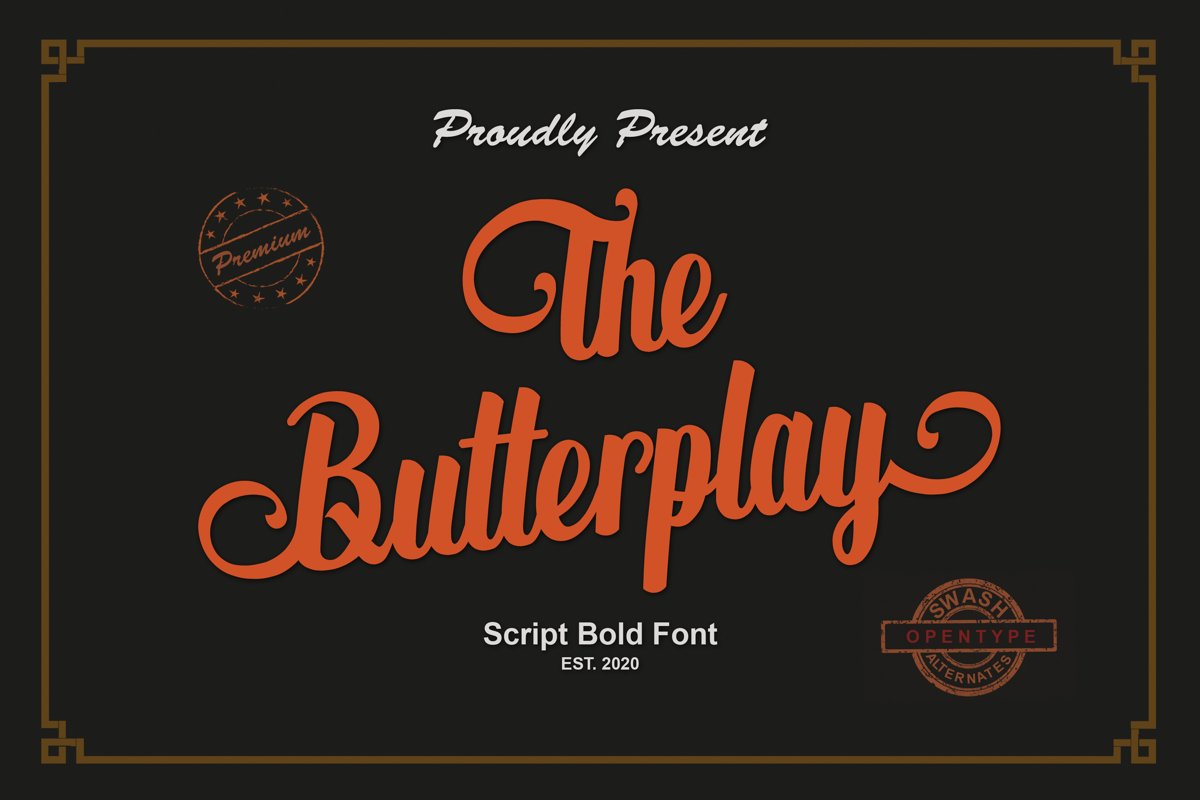
The Butterplay
The Butterplay Font is inspired by classic typography
smooth, clean and simple. every single letters have been carefully crafted
to make your text looks beautiful.
and brings its own unique style to any design project.
it will elevate a wide range of design projects to the highest level,
be it branding, headings, wedding designs, invitations,
logos, labels, and much more!